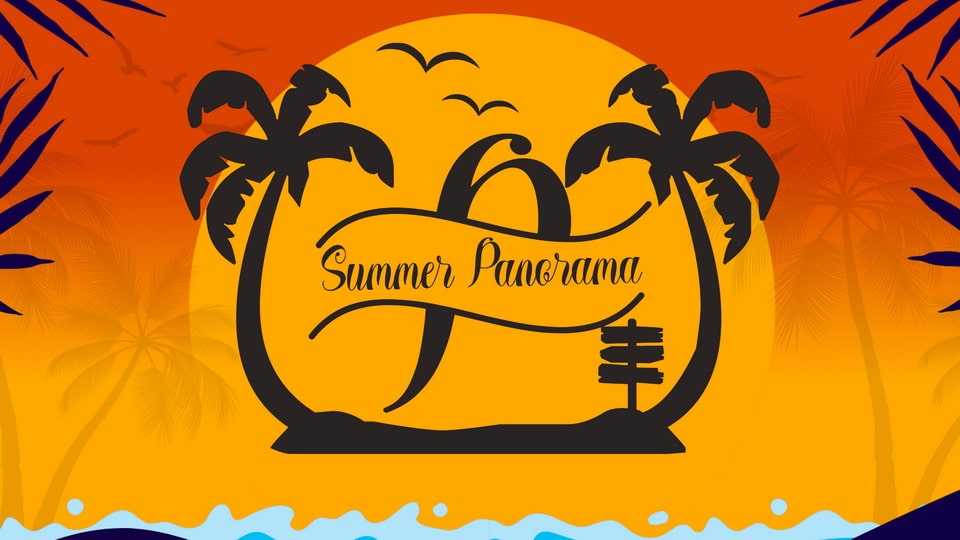
Download Summer Panorama Monogram font, a beautiful and elegant monogram typeface. It is suitable for summer, spring, Father’s Day, Christmas, wedding, invitations, Birthday and others.